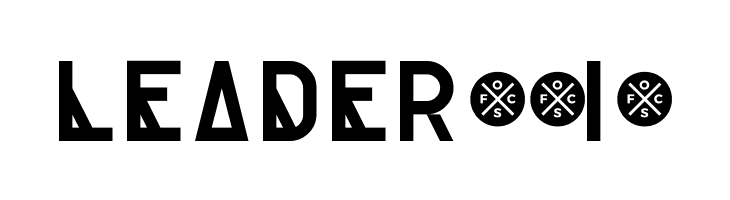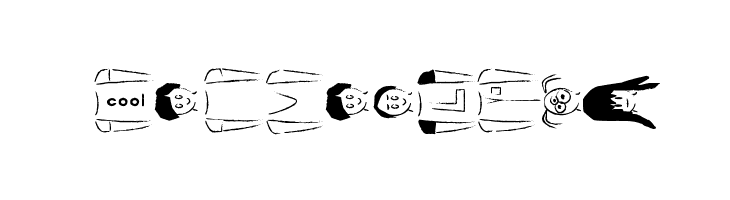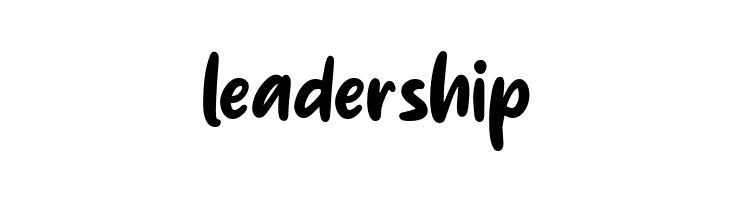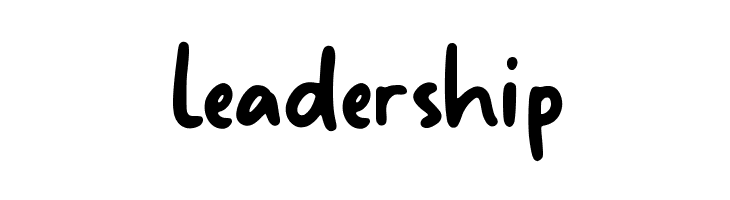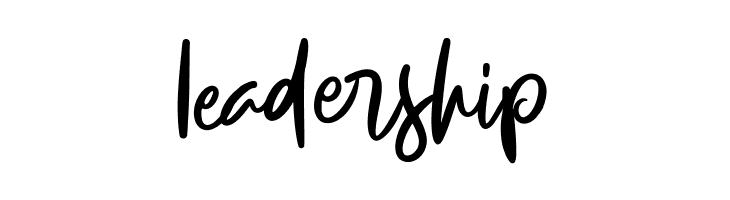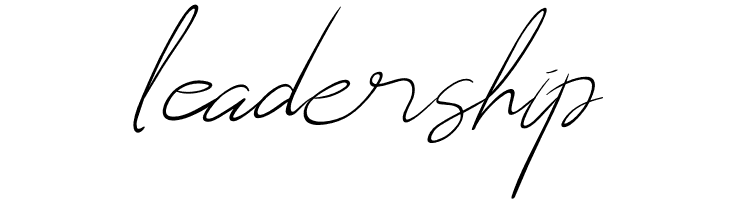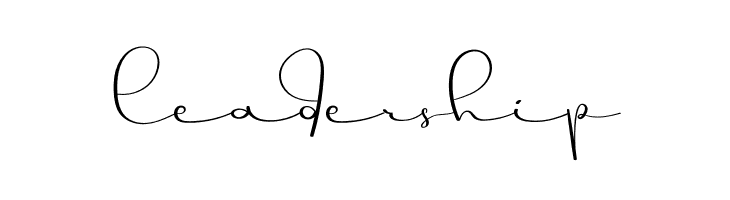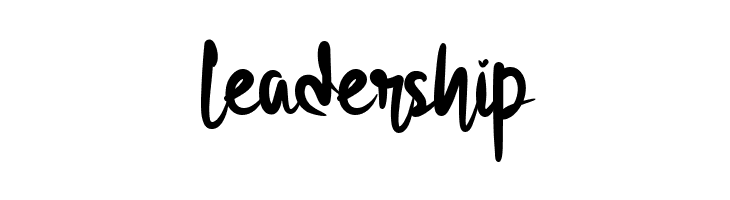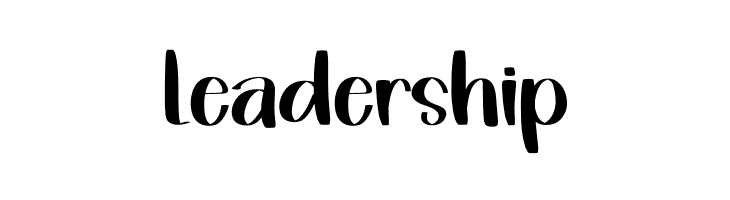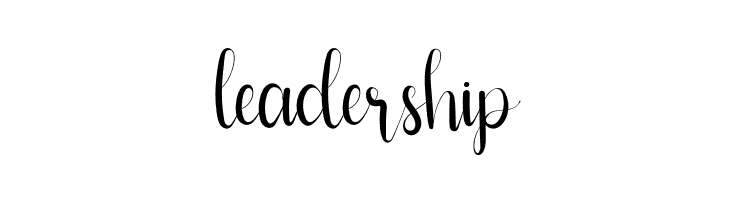
A playful, bold handwritten font with rounded strokes and a dynamic slant.
A playful, handwritten-style font with rounded characters.
A delicate, flowing script font with elegant, handwritten style.
A playful, handwritten font with rounded edges and a casual style.
A playful, hand-drawn font with a rustic, textured appearance.
A bold, playful font with thick, rounded strokes and a retro-modern style.
A playful, cursive font with bold strokes and a handwritten style.
A lively, flowing script font with a playful, handwritten style.
A playful, whimsical font with smooth curves and elegant strokes.
A playful, organic handwritten font with uneven strokes and a casual appearance.
A lively, cursive script font with a handwritten feel and dynamic stroke variations.
A playful, casual handwritten font with rounded, smooth letterforms.
A playful, handwritten font with smooth curves and a casual style.
A playful, handwritten font with dynamic strokes and a personal touch.
A playful, handwritten font with dynamic strokes and artistic flair.
A playful serif font with decorative heart embellishments and medium contrast.
A playful, bold handwritten font with smooth, rounded edges.
A playful, bold handwritten font with smooth, rounded edges and a dynamic script-like style.
A bold, expressive handwritten font with fluid strokes and a playful style.
A bold, playful font with rounded edges and a modern, friendly style.
A lively and dynamic handwritten font with fluid, connected strokes.
A graceful, cursive script font with elegant, flowing strokes.
An elegant, decorative script font with flowing, cursive letterforms.
A bold, geometric font with a modern and artistic design.
A bold, playful handwritten font with rounded, irregular letterforms.
A playful and elegant script font with smooth, flowing lines.
A playful and elegant script font with modern, flowing lines.
A bold, dynamic font with rounded strokes and a playful, energetic style.
A playful, hand-drawn font with irregular, dynamic strokes and a whimsical style.
A creative, cursive font with an artistic and flowing style.
A bold, playful script font with a handwritten feel.